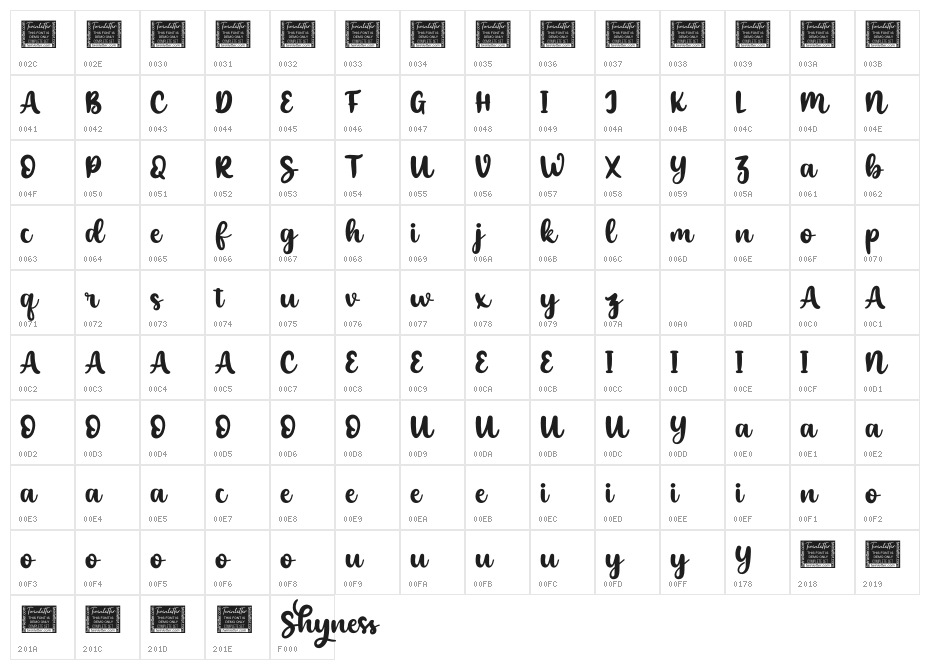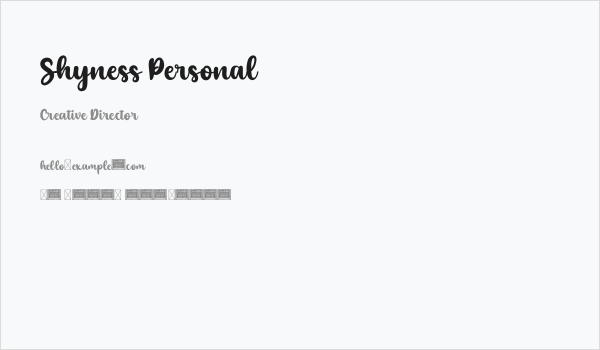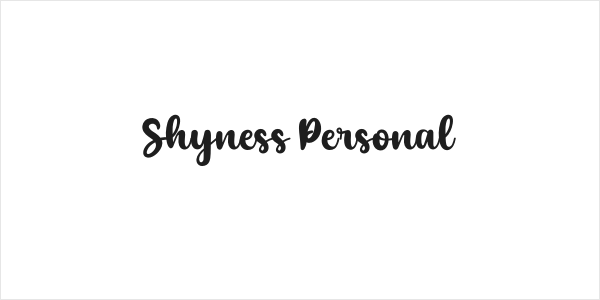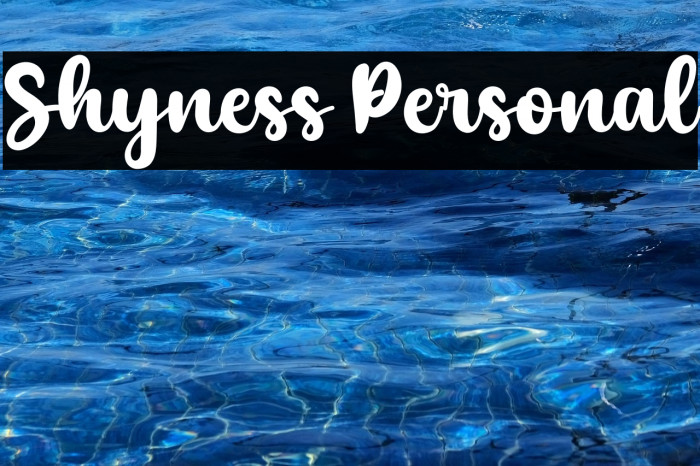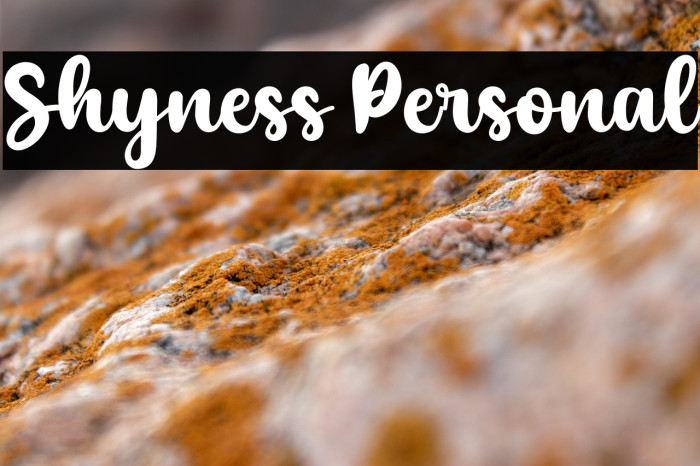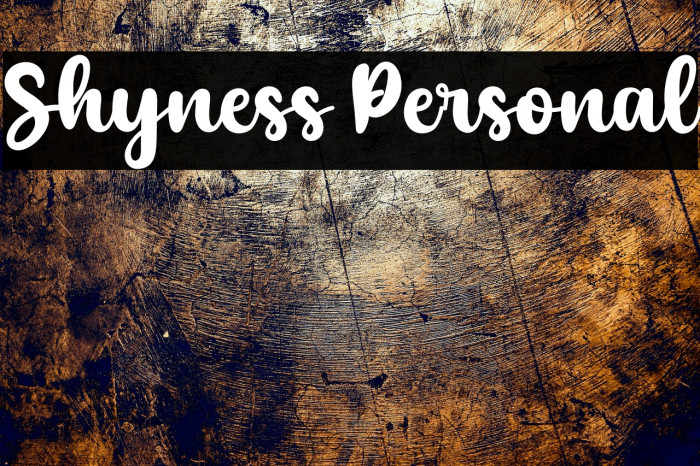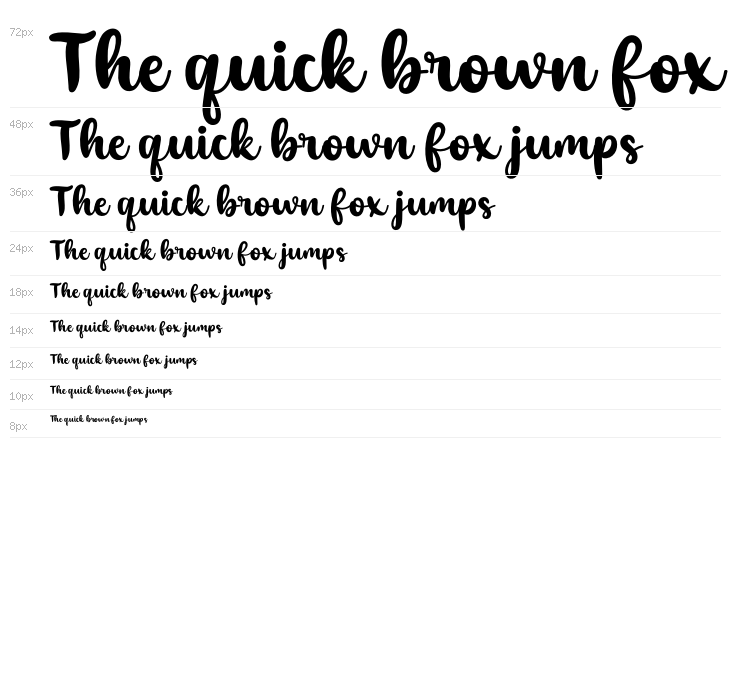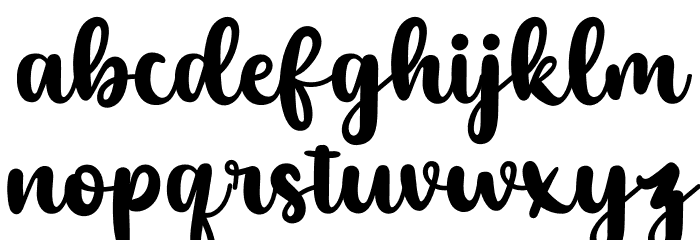
Shyness Personal Font
Shyness Personal Description
This font features a playful and bold script style with a handwritten appearance. The letters are connected, giving it a fluid and dynamic look. The strokes are thick and consistent, providing a strong visual impact. The uppercase letters are slightly larger and more pronounced, while the lowercase letters maintain a cohesive flow. This font exudes a casual and friendly vibe, making it suitable for creative and informal projects. The characters are well-spaced, ensuring readability while maintaining the artistic flair of the script.
| Proposed Projects | Ideal for greeting cards, invitations, branding, and social media graphics. |